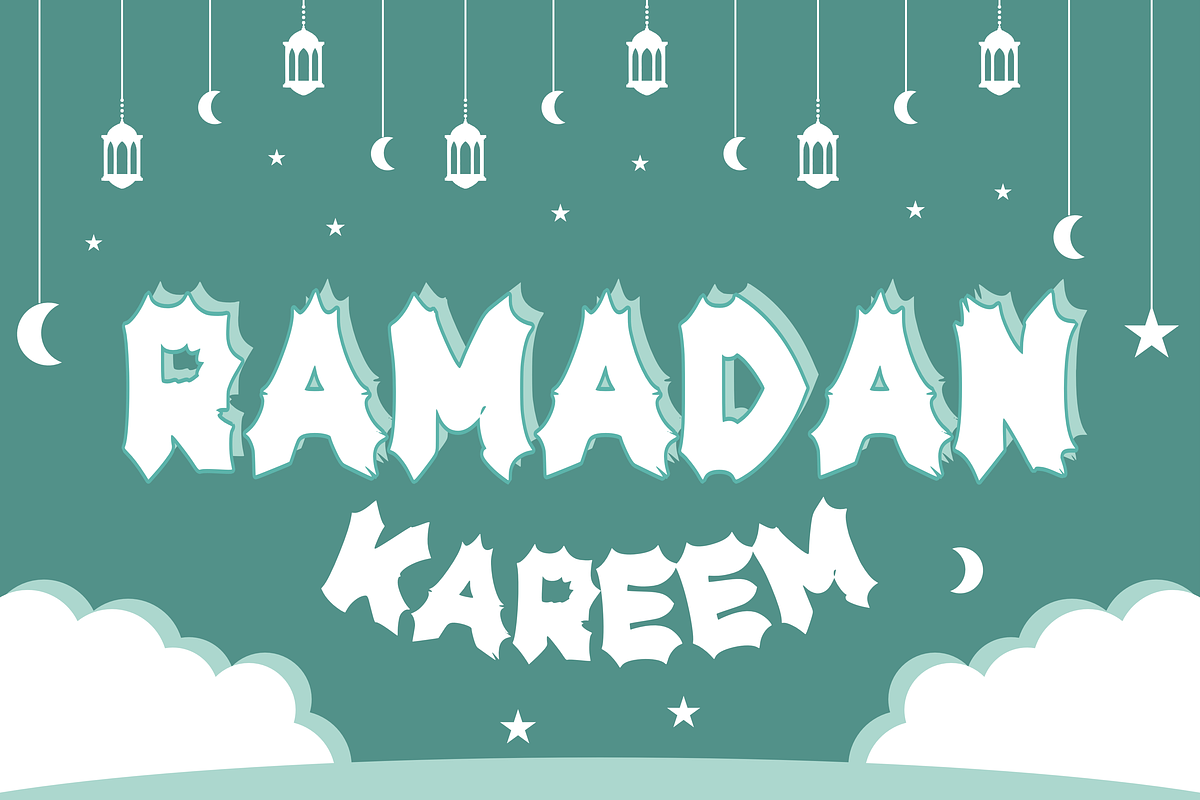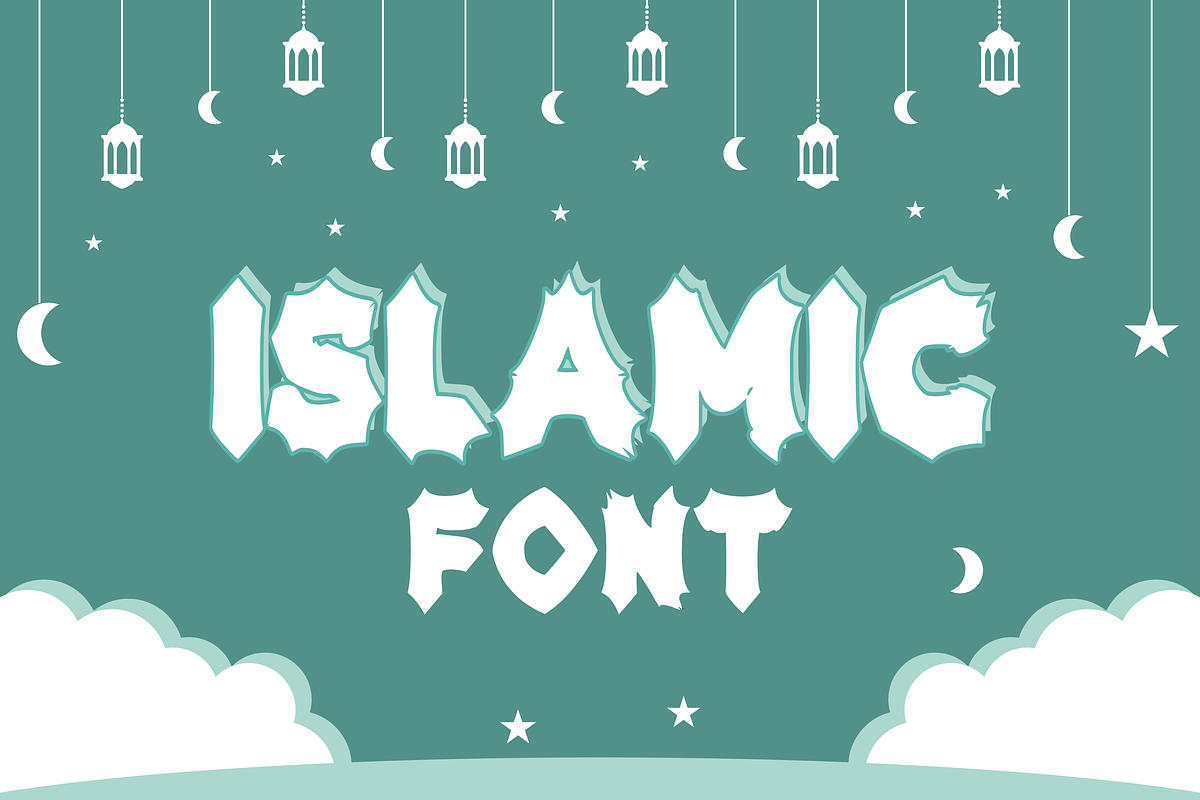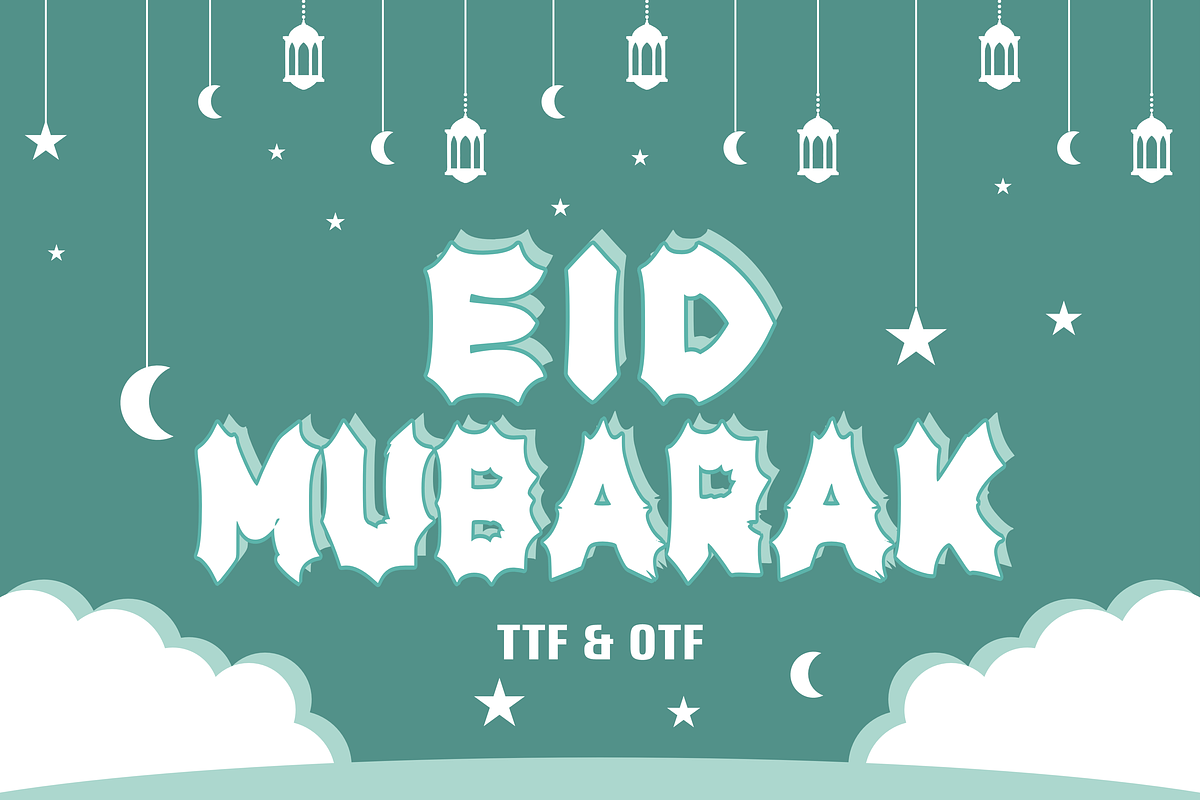
Eid Mubarak - Islamic Font Types
Experience the richness and elegance of Islamic traditions with the Eid Mubarak font. This font style is beautifully inspired by the spiritually significant periods of Eid al-Fitr and Ramadan. The impeccable fusion of tradition and modernity precisely encapsulates the essence of these auspicious Islamic events. Eid Mubarak’s distinct look adds depth and charm to a variety of design mediums. Be it posters, magazines, screen printing, digital platforms, stickers, or banners – Eid Mubarak font seamlessly blends in, redefining the visual aesthetic. It is your perfect choice to create intricate Islamic templates and evocative background designs, enhancing the overall cultural appeal.